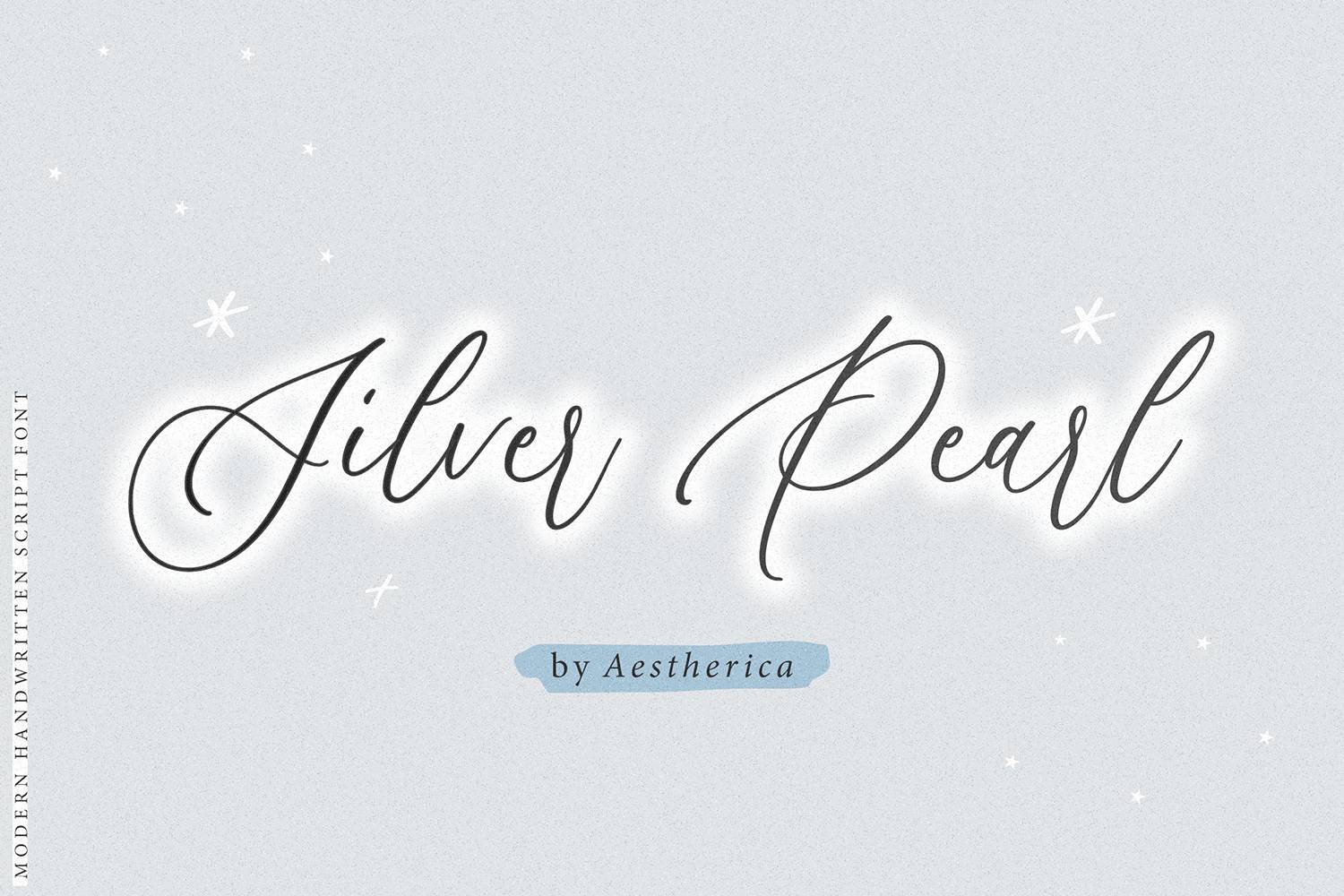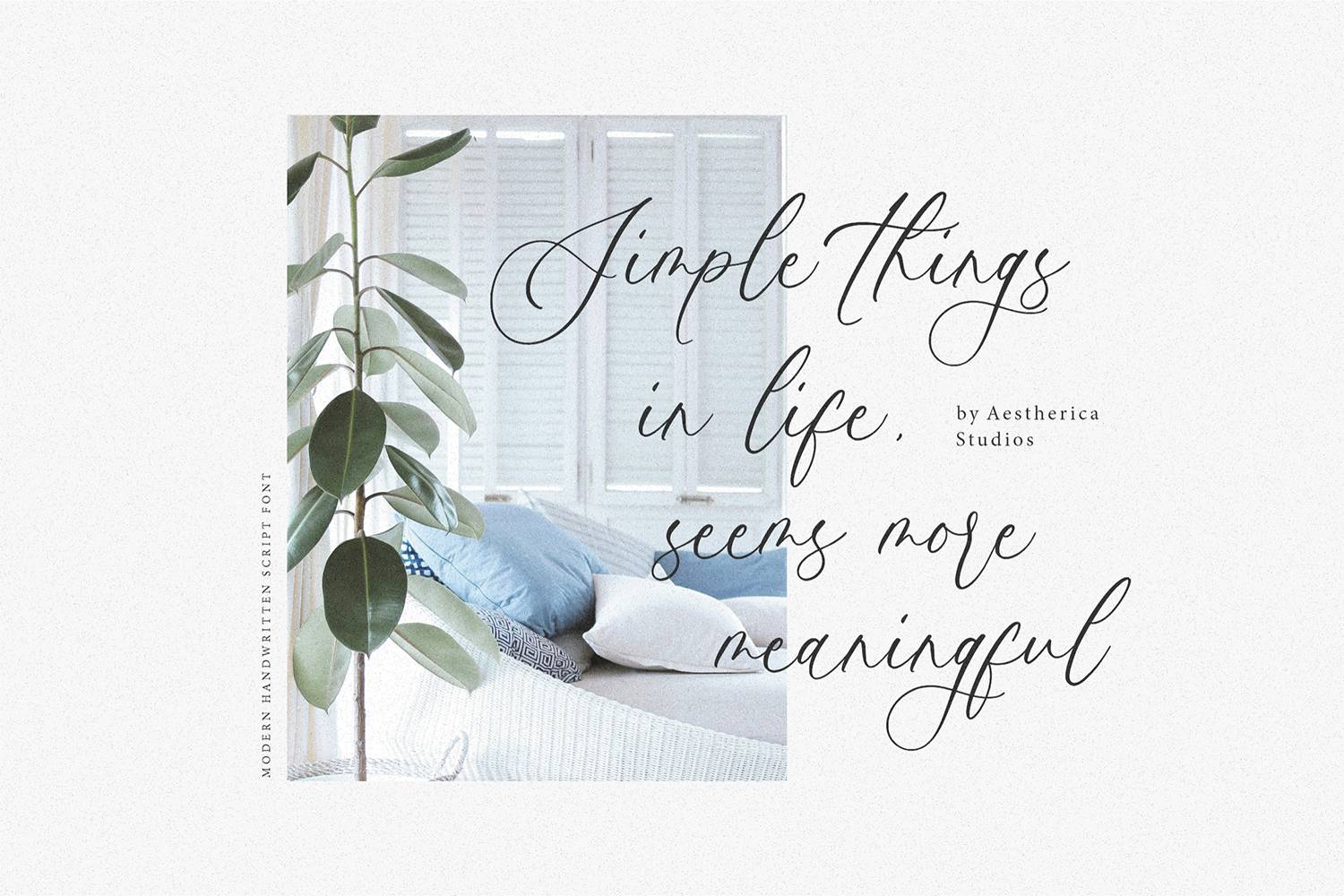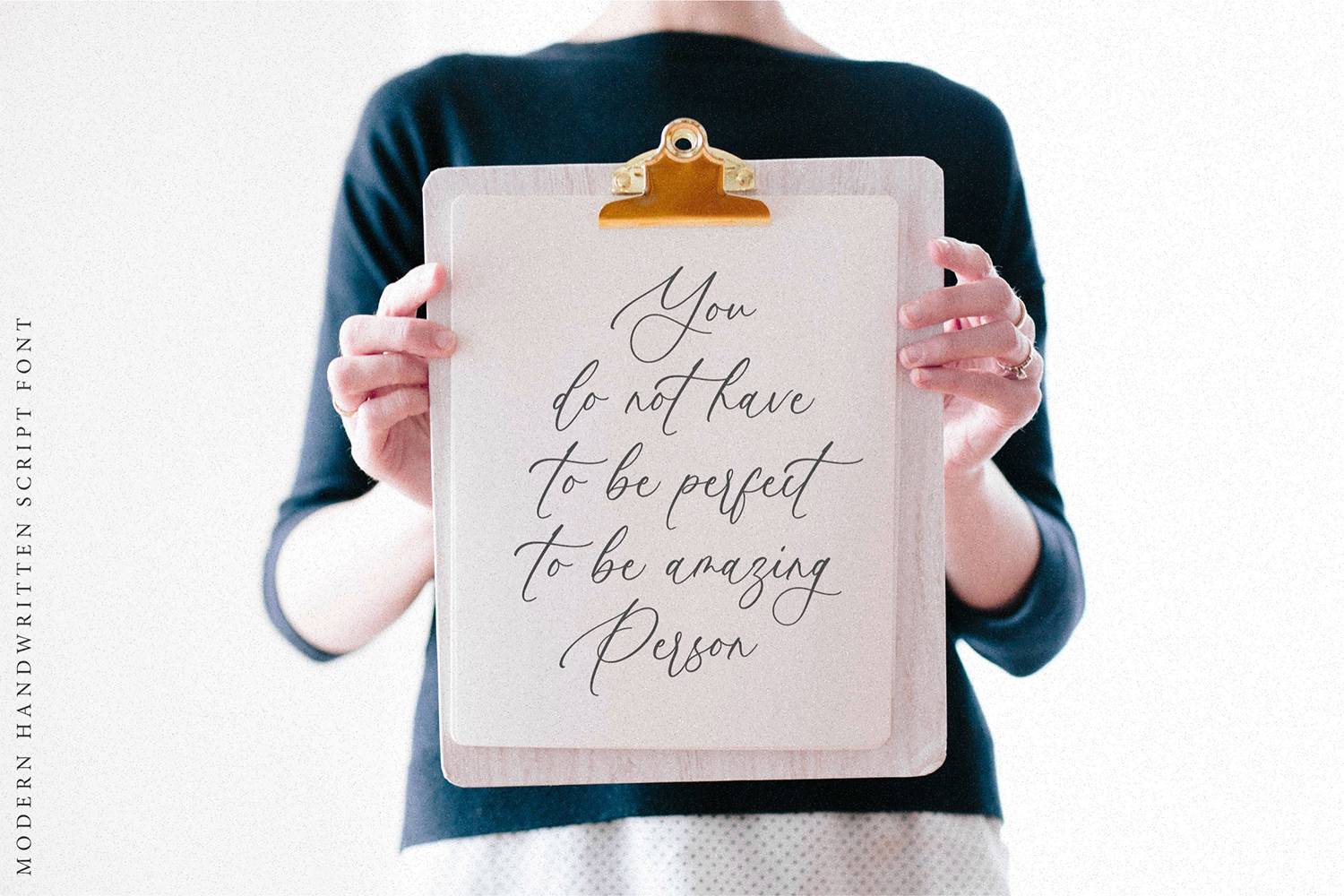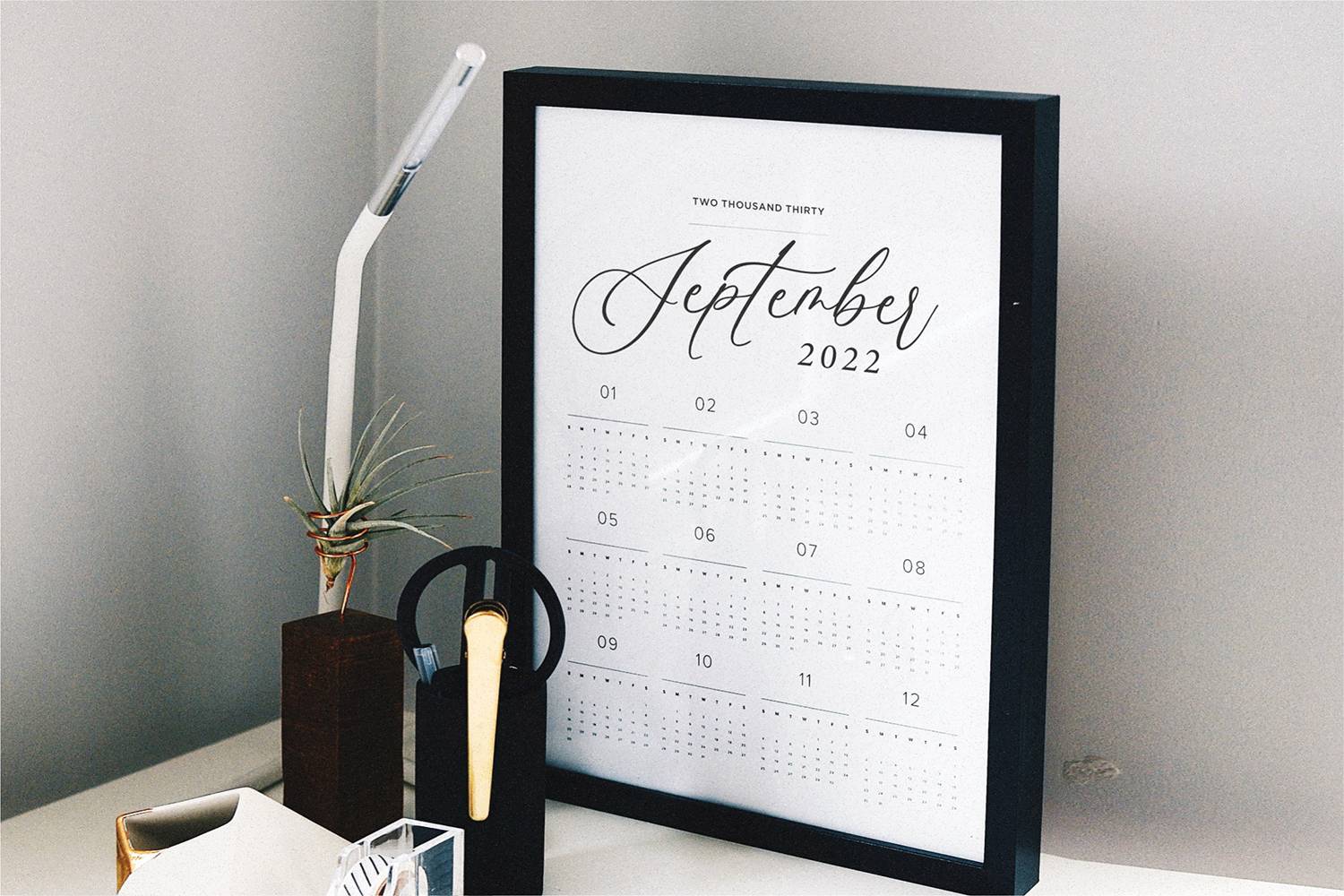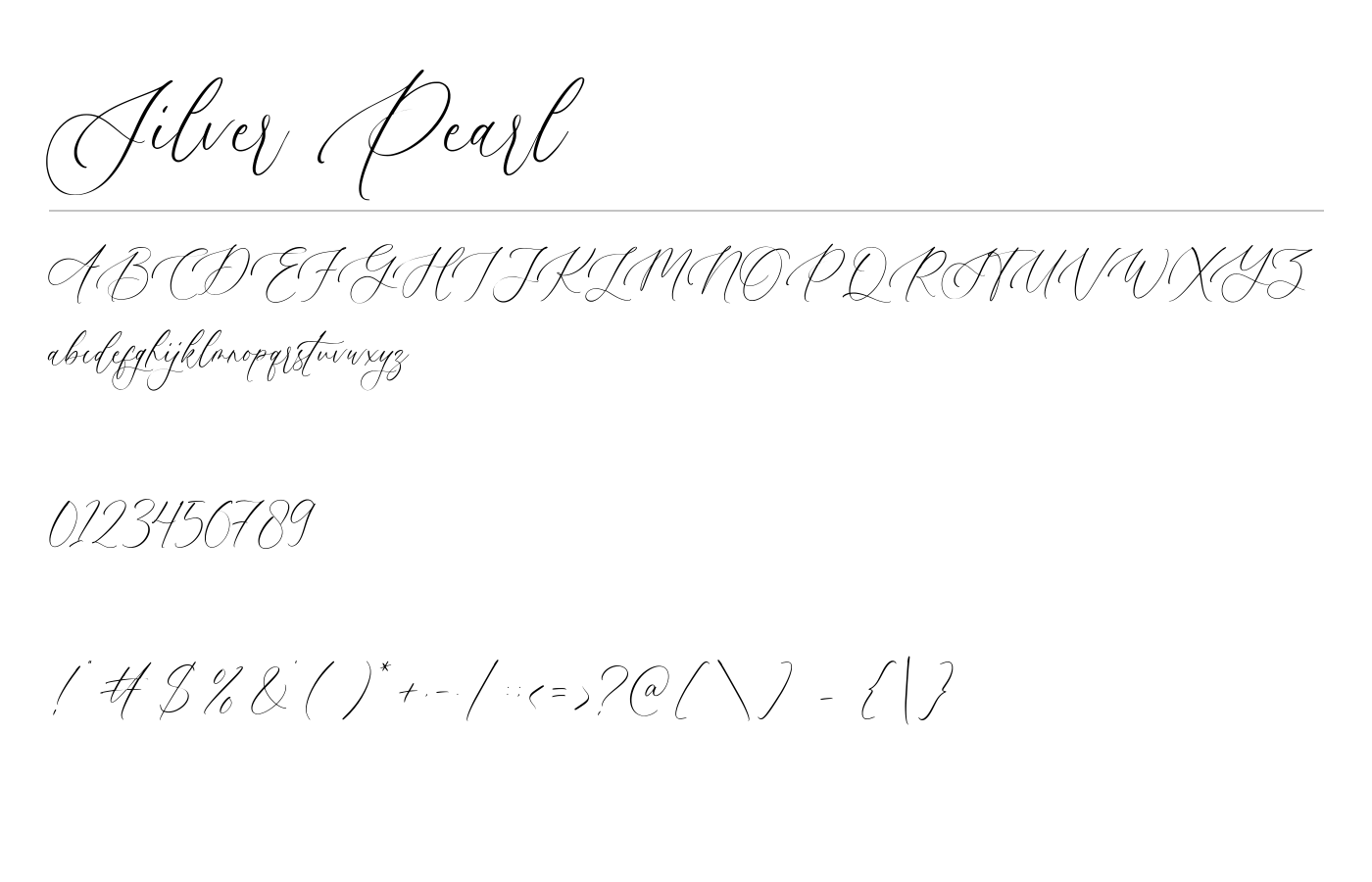
Silver Pearl is an elegant script font with delicate, flowing lines and a light, airy feel. Its thin strokes and graceful curves create a sophisticated, luxurious look ideal for invitations, branding, and editorial designs that seek to convey refinement and charm. This font works best in decorative uses rather than body text, where its stylish flair can truly shine.
Silver Pearl Font
About Silver Pearl Font